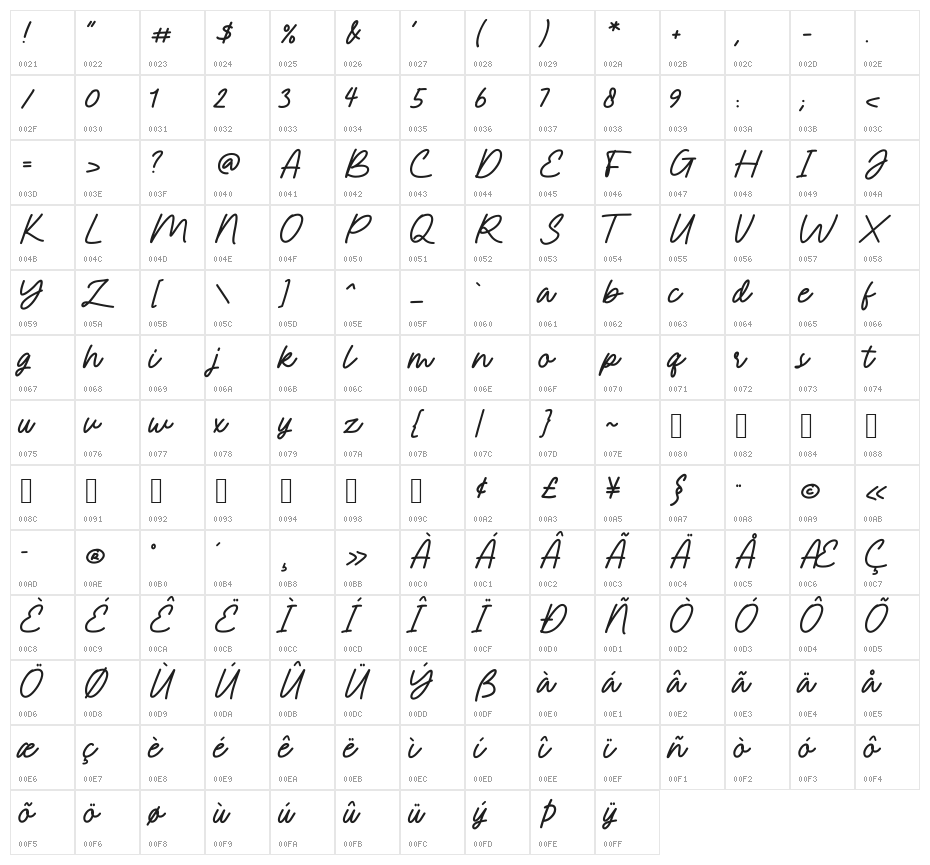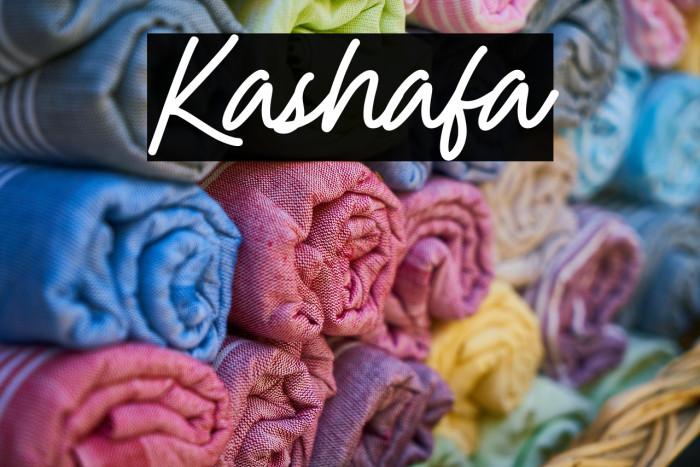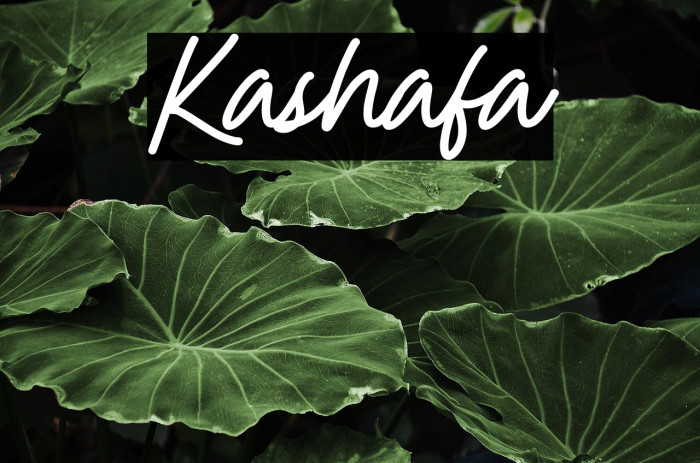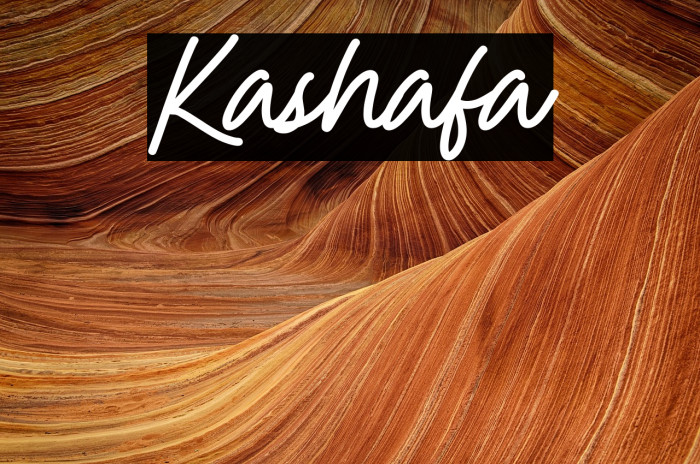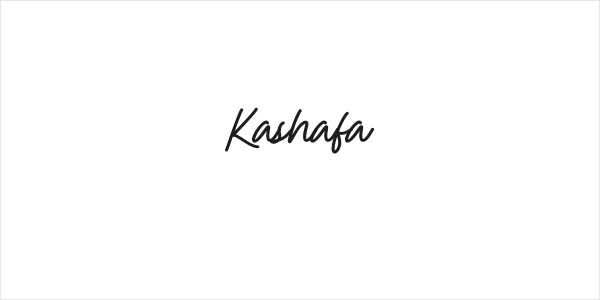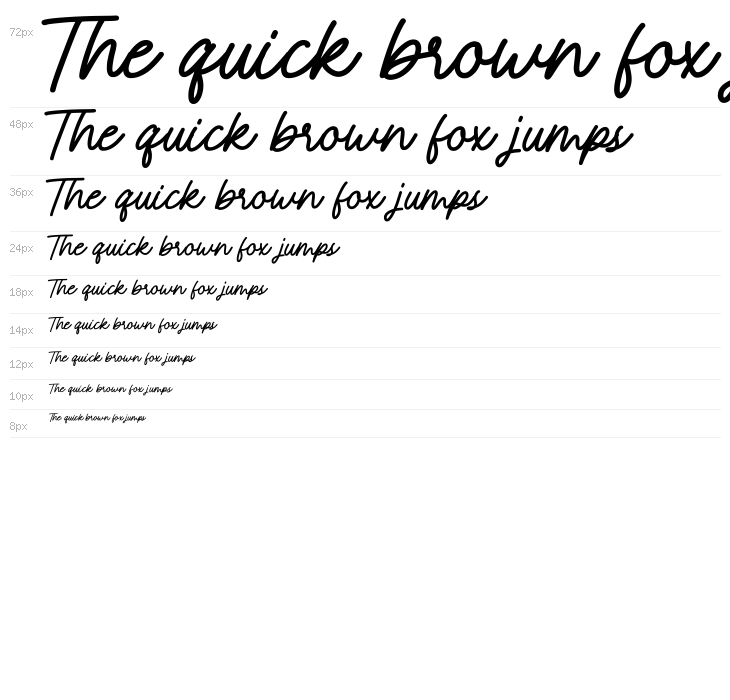
Kashafa Font
Kashafa Description
A flowing, cursive script font with a handwritten style, featuring smooth, connected letters and a casual elegance.
| Overall Style | Casual, Elegant |
| Use Case | Logos, Headlines, Personal notes |
| Proposed Projects | Invitations, greeting cards, personal branding. |